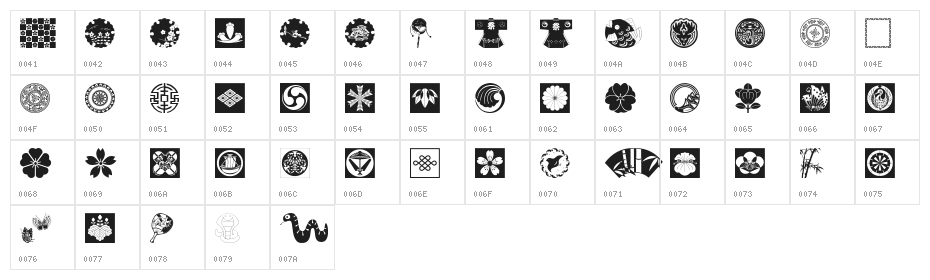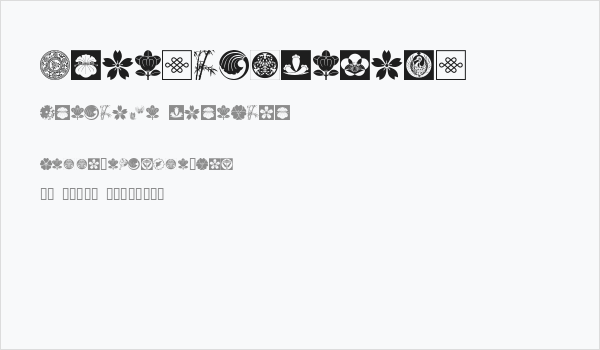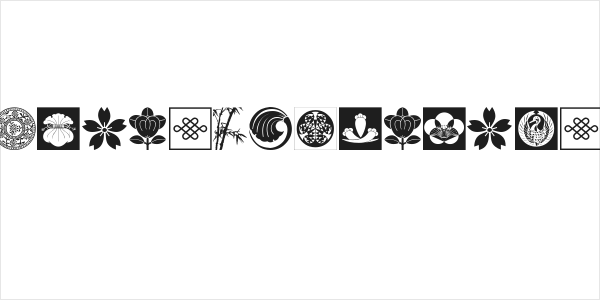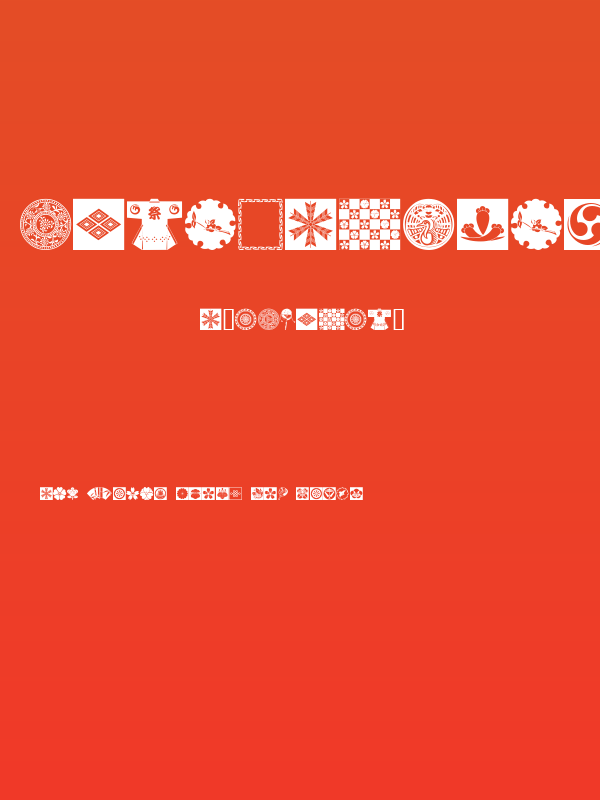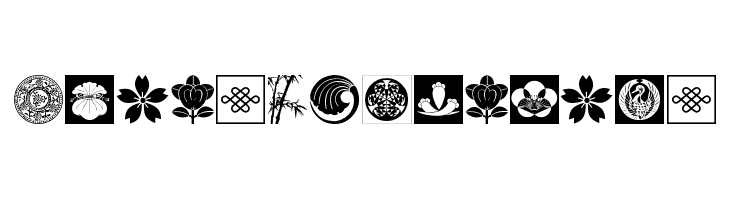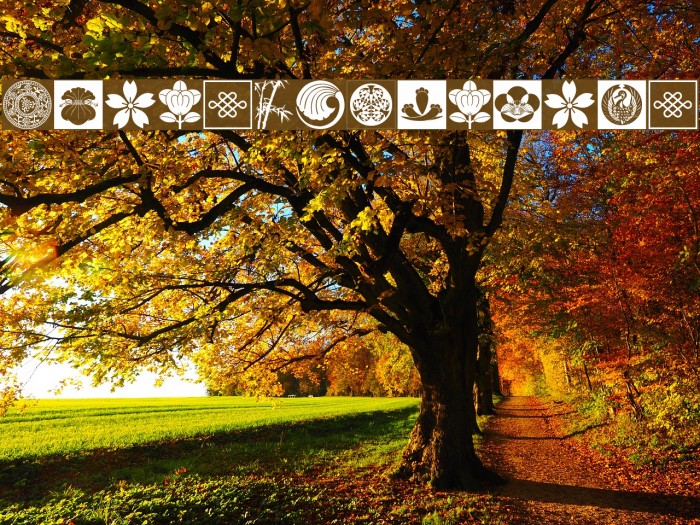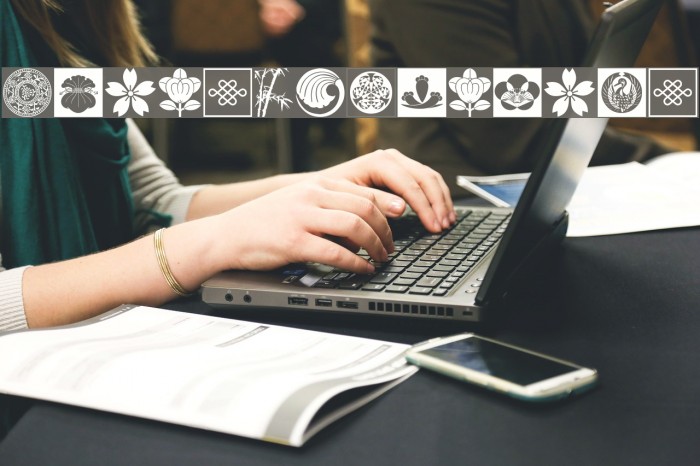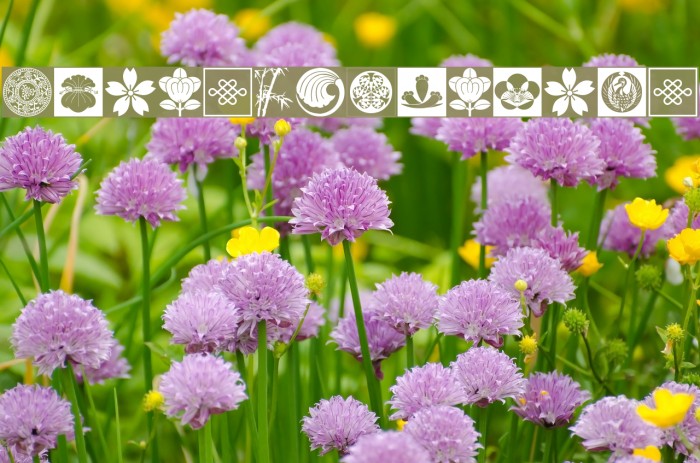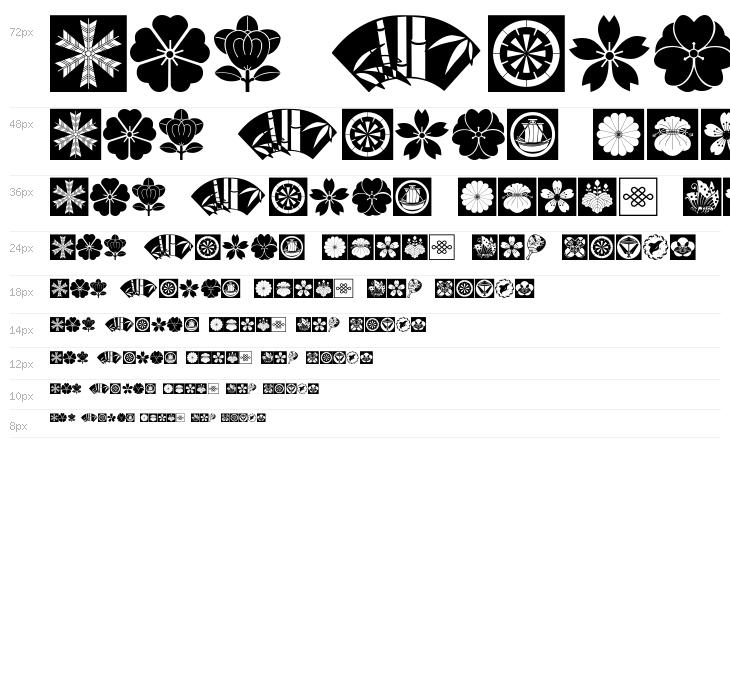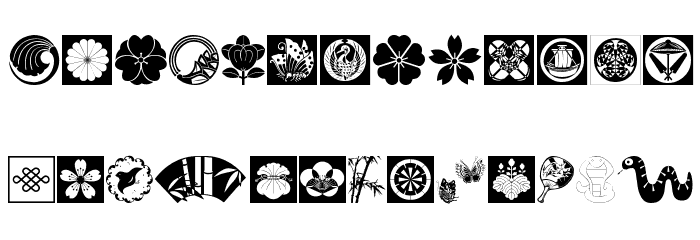
OrientalDesign Font
OrientalDesign Description
A highly decorative display font featuring intricate, ornamental glyphs inspired by traditional East Asian motifs, including florals, geometric patterns, and cultural symbols. Each character is presented within a square or circular frame, emphasizing bold contrast and detailed linework.
| Overall Style | Decorative, Cultural, Ornamental |
| Use Case | Logos, Headlines, Posters, Themed Graphics |
| Proposed Projects | Branding for Asian restaurants, cultural event posters, packaging, themed invitations, decorative headings. |